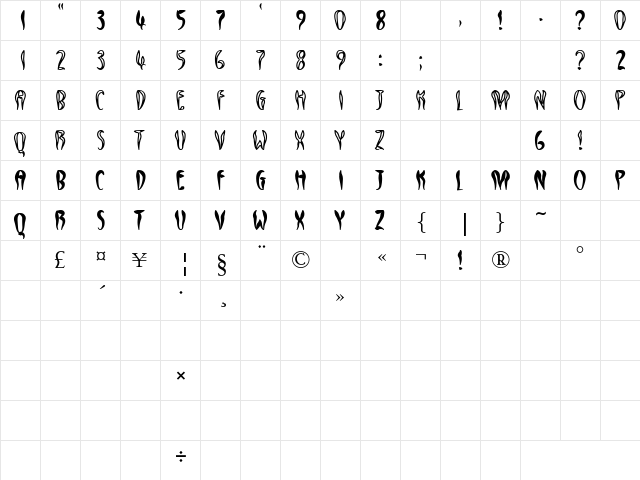
Qreepy free Regular
| Designer | Joanne Taylor |
Design Context for Qreepy free Typeface
Qreepy free is a composed and adaptable typeface that performs quietly and consistently across a wide range of design contexts.